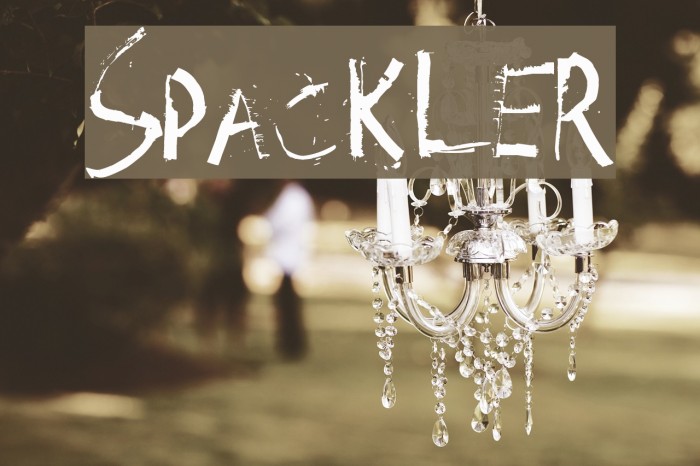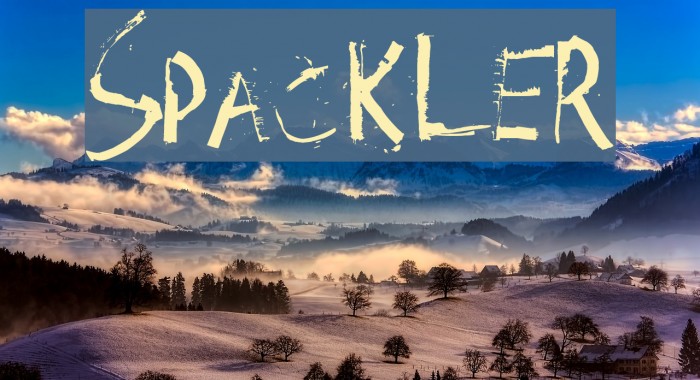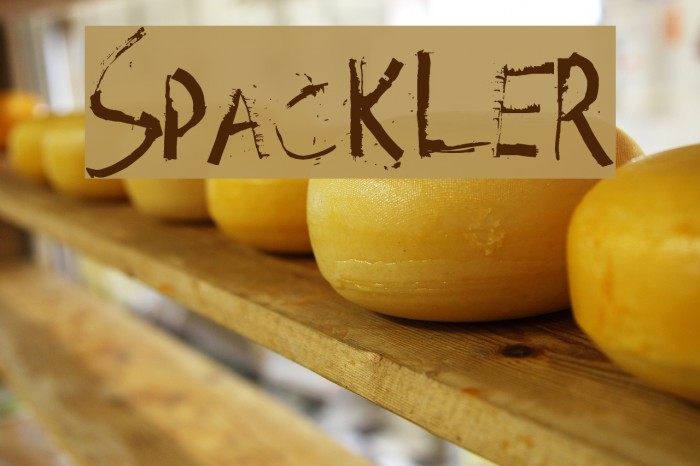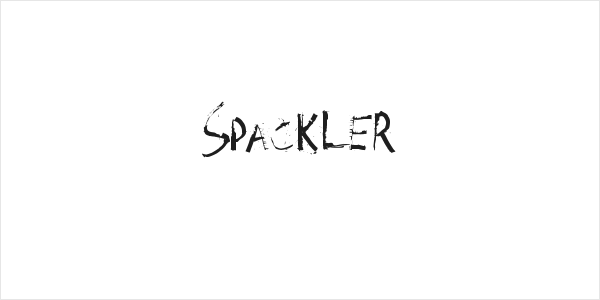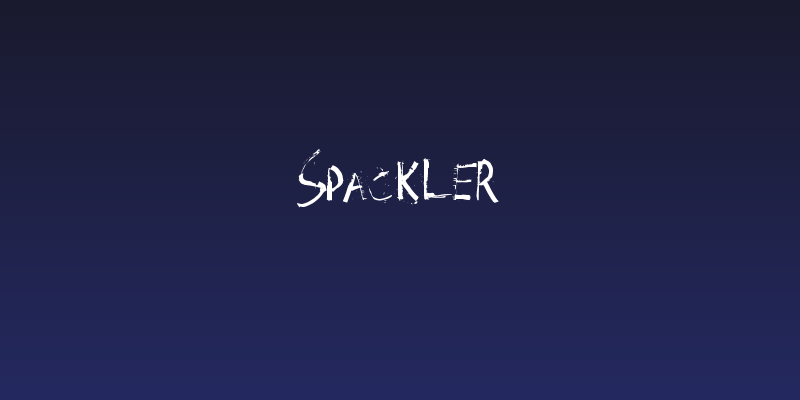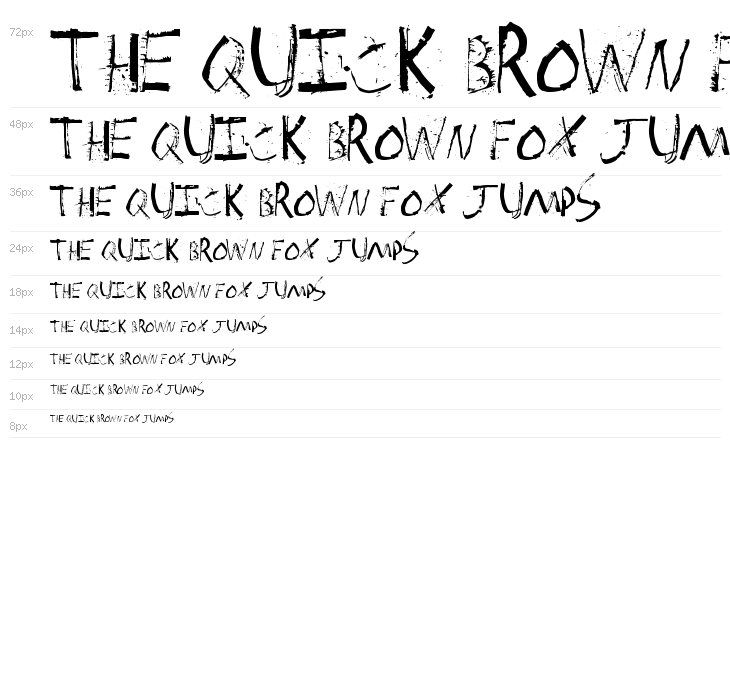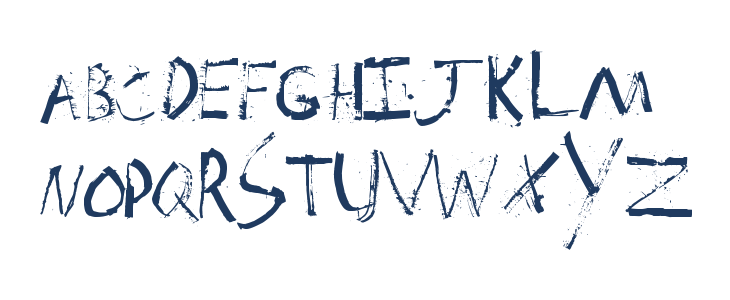
Spackler Font
Spackler Description
This font exhibits a rugged and distressed style, reminiscent of hand-painted or graffiti-like lettering. The characters are irregular and feature a rough texture, giving them a raw and edgy appearance. The uppercase and lowercase letters maintain a consistent aesthetic, with jagged edges and uneven strokes that suggest a sense of movement and spontaneity. Numbers and special characters follow the same design principles, enhancing the overall cohesive look. This font's unique style makes it suitable for projects that require a bold and unconventional visual impact.
| Proposed Projects | Ideal for album covers, street art-inspired designs, posters, and edgy branding projects. |